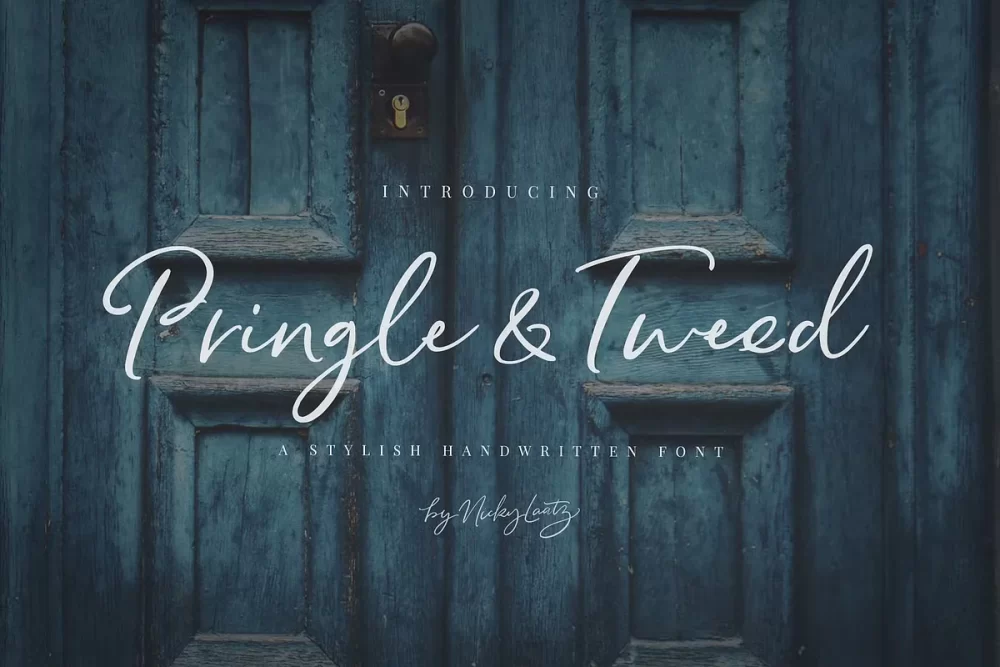
Say hello to Pringle and Tweed, a new casual handwritten script with its own unique curves and an elegant inky flow. The letters are created to appear not too overly refined , maintaining some inky imperfections in the edge detail , adding a more realistic hand-inked look.
Perfect for adding a elegant and unique touch to your lettering projects and branding, Pringle and Tweed has that special nuance.
To make your lettering look truly unique, Pringle and Tweed comes with a comprehensive set of double letter ligatures , and a set of stylistic alternate lowercase letters in it’s opentype features. Pringle and Tweed includes a slanted version for an extra elegant feel.